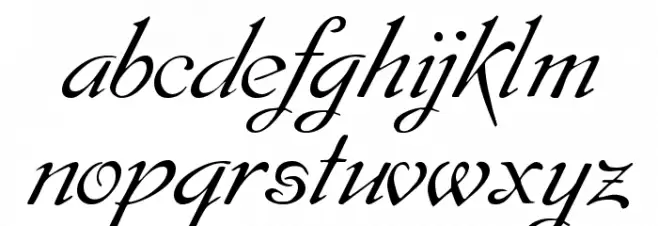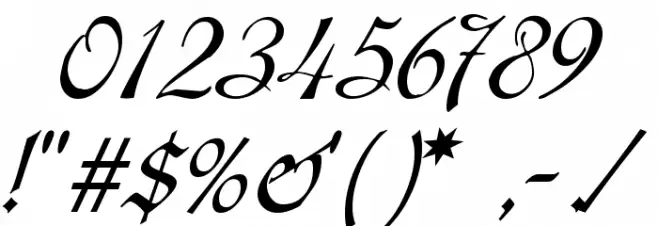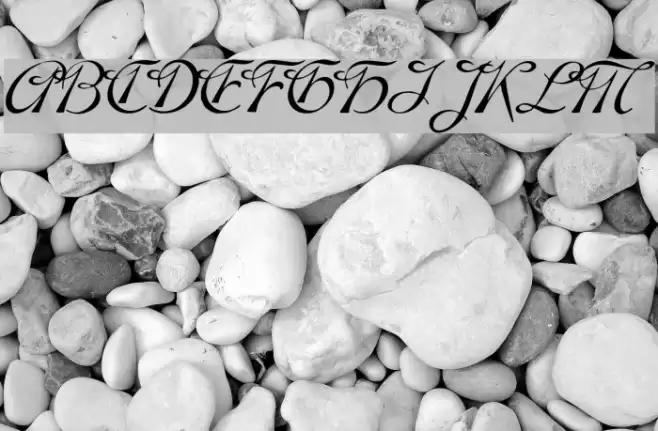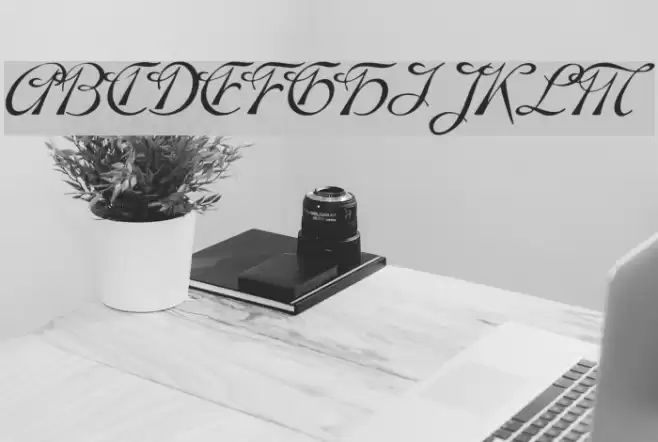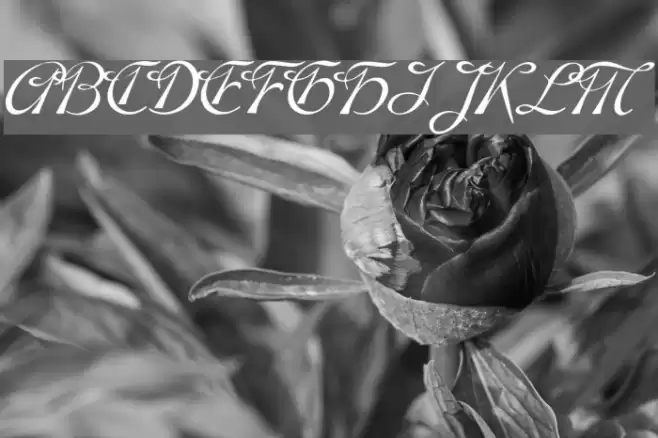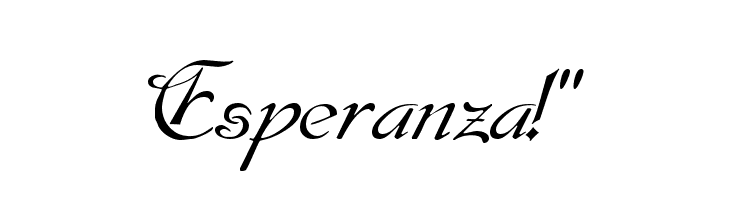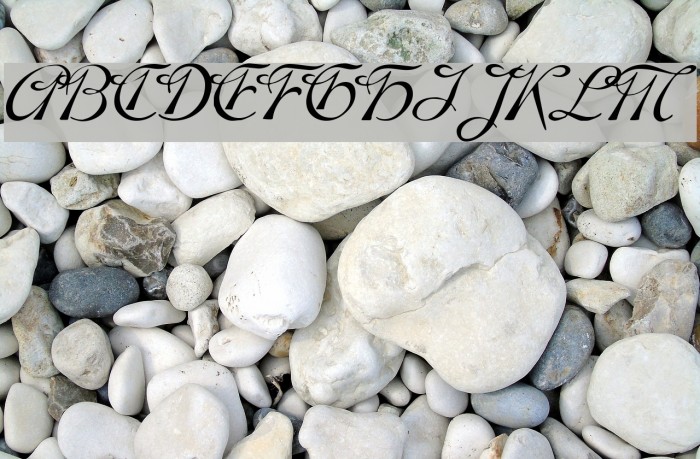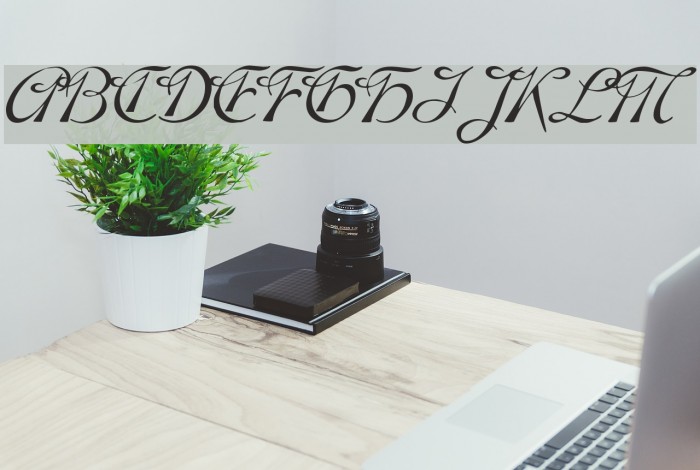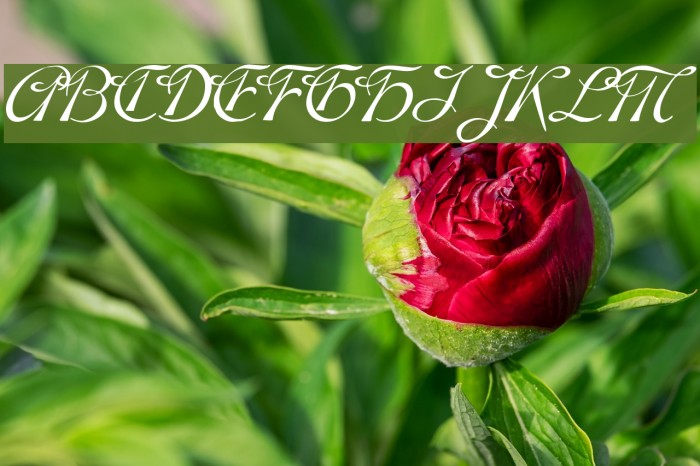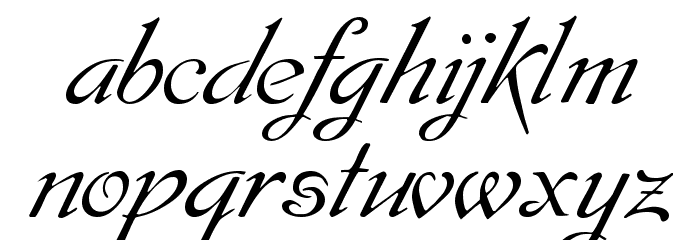
Esperanza!`
This font exhibits a sophisticated and elegant script style, characterized by its flowing, cursive letterforms. The uppercase letters are ornate, with intricate swashes and flourishes that add a touch of grandeur. The lowercase letters maintain a consistent slant, enhancing the font's graceful appearance. The numerals are designed to complement the letters, featuring similar curves and strokes. Special characters are included, each crafted with the same attention to detail. The overall impression is one of refinement and elegance, making it suitable for formal and decorative applications.
An elegant script font with ornate, flowing letterforms.
- Proposed Projects: Ideal for wedding invitations, luxury branding, elegant stationery, and decorative headlines.
- Category: Script
- Contrast: High
- Overall Style: Elegant
- Use Case: Logos, Invitations, Decorative headlines